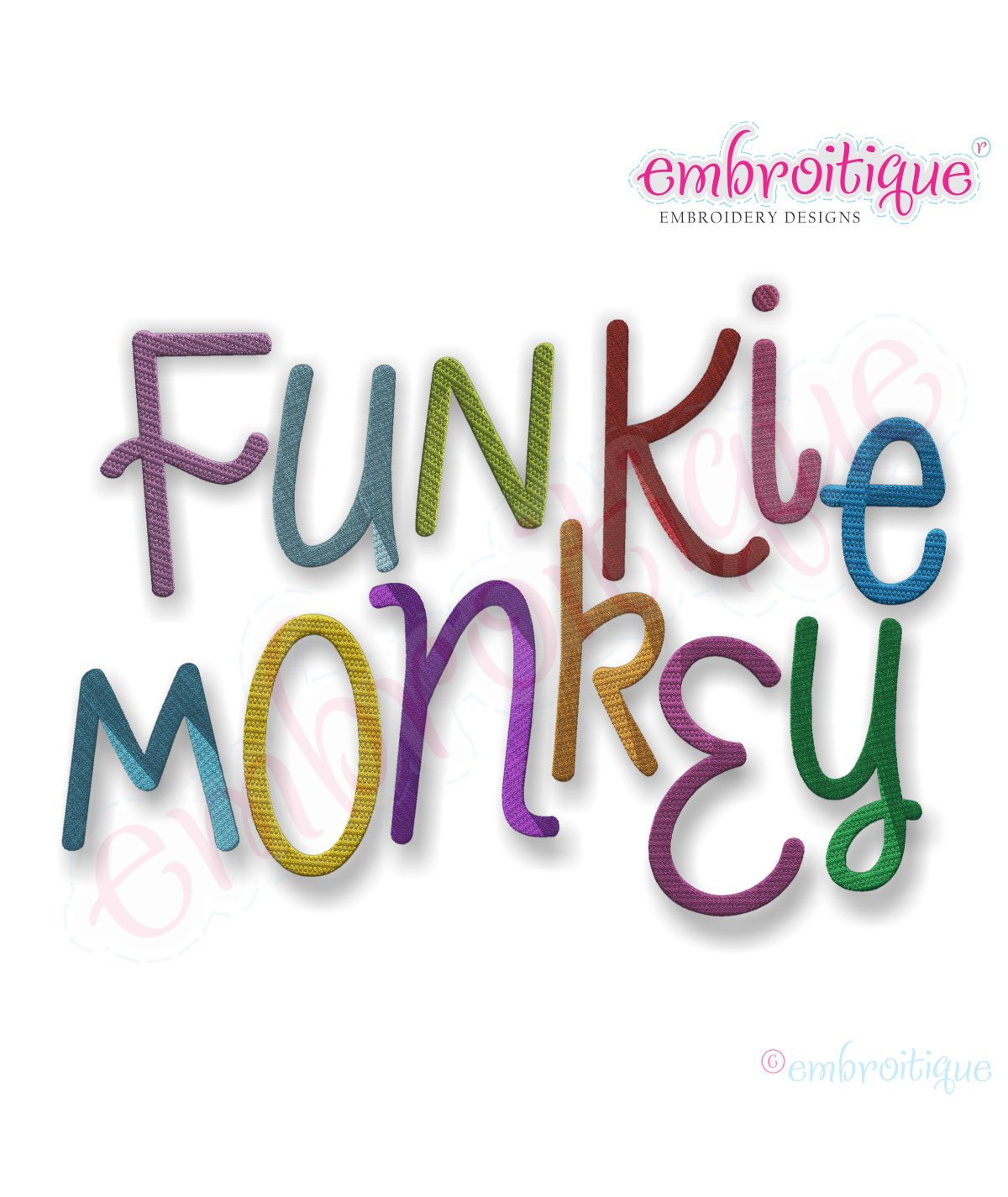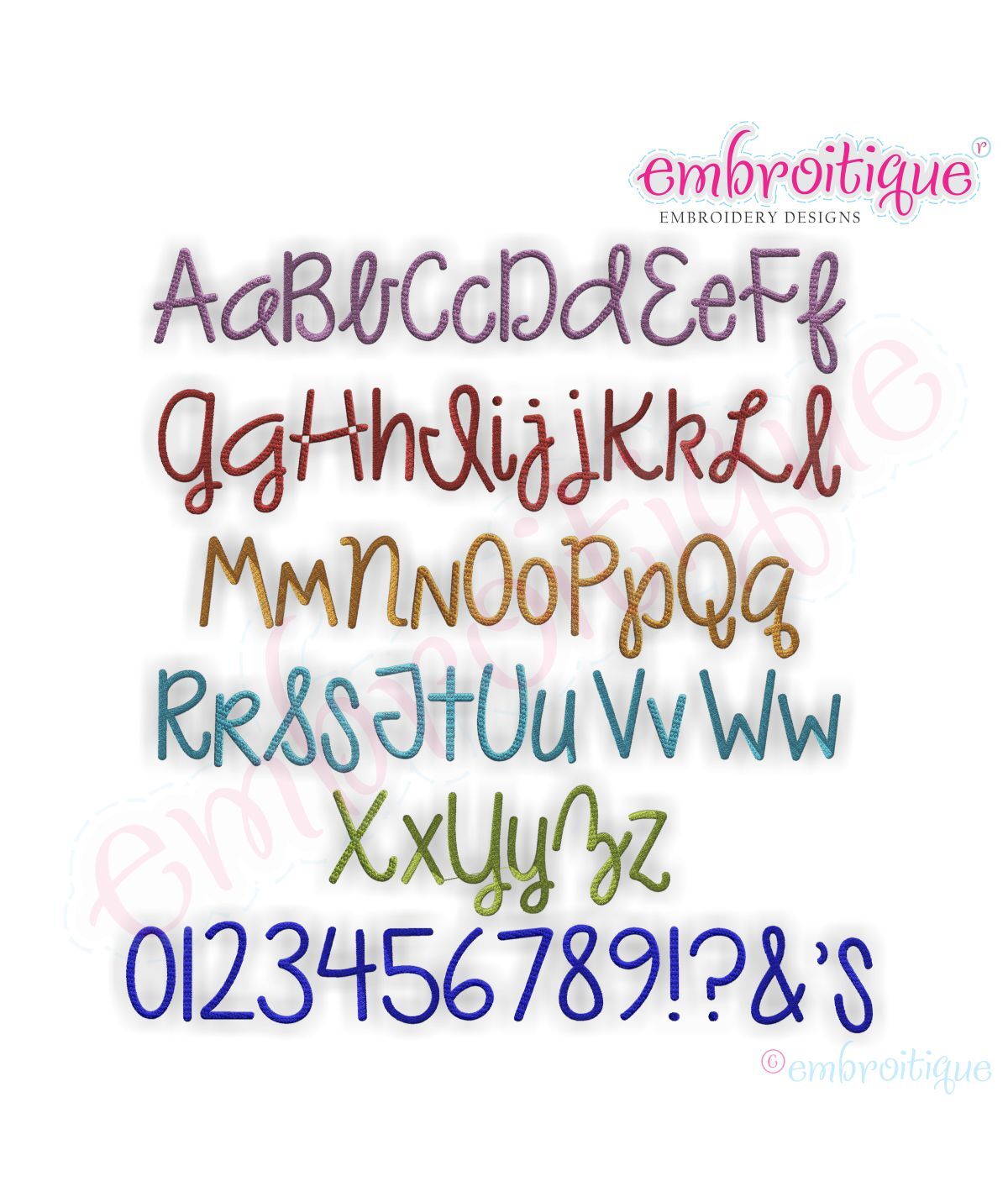
Funkie Monkey Monogram Font Set - Large - 4" - 8"
This fun and funky set is perfect for boys and girls! Each letter is an individual file that you can use to build monograms, names and sayings.